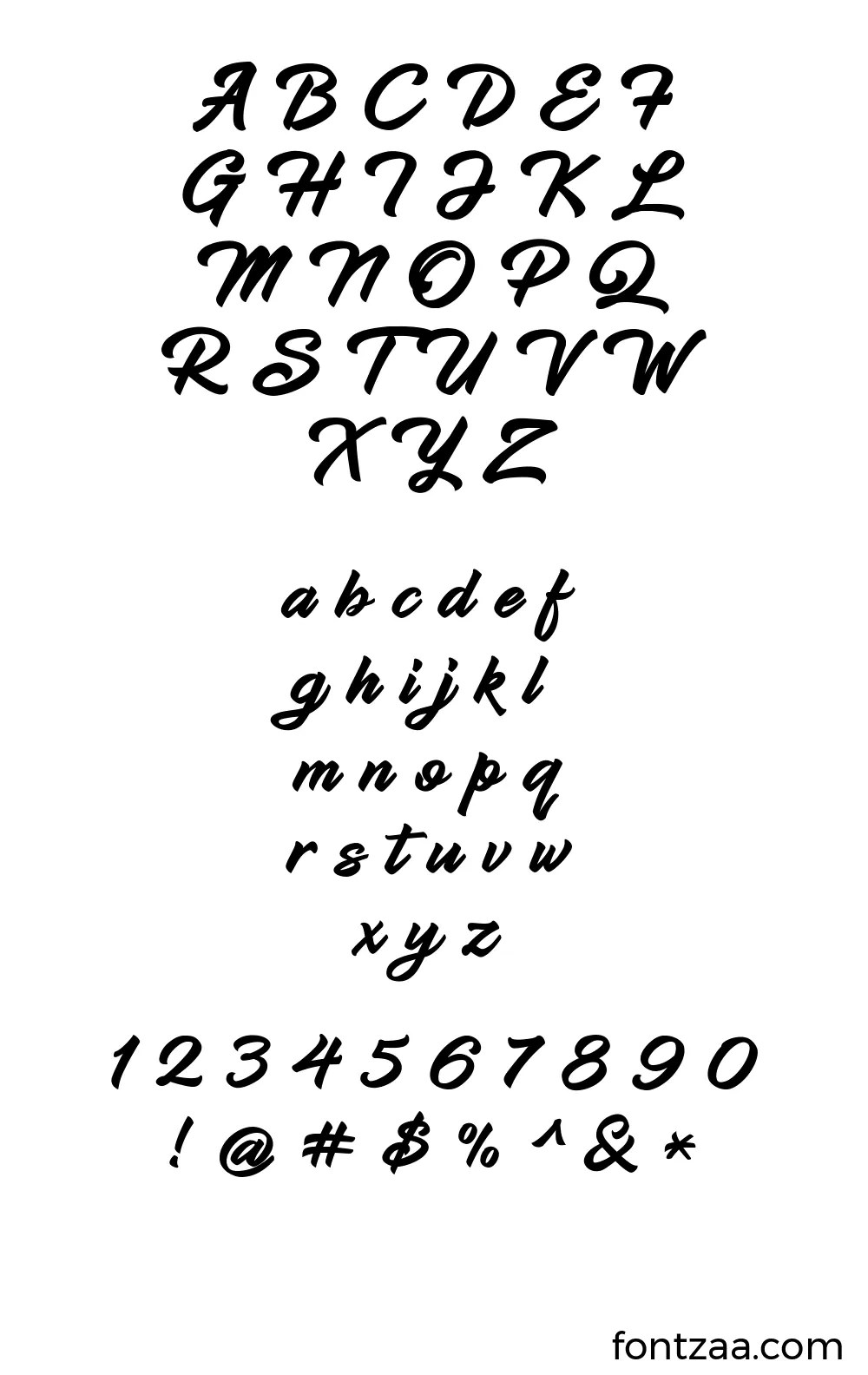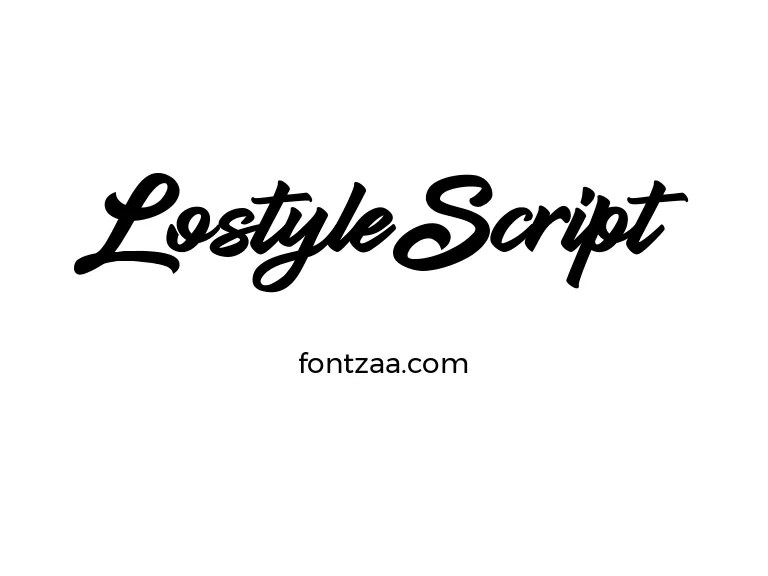
LostyleScript Font comes from Getypes Studio and has a modern look. The download includes 2 font files (OTF and TTF) with 216 glyphs, covering uppercase and lowercase letters, numerals, common punctuation, accented Latin characters and currency symbols. It suits logos, wordmarks, branding, posters, packaging and promotional graphics, particularly at larger sizes where the letter shapes are easier to see.
LostyleScript Font Family
- LostyleScript
| Designer | Getypes Studio |
| Category | Display |
Pairing and Use
For body text, pair LostyleScript Font with a neutral sans such as Open Sans or Inter and keep the font itself for headlines and key words.